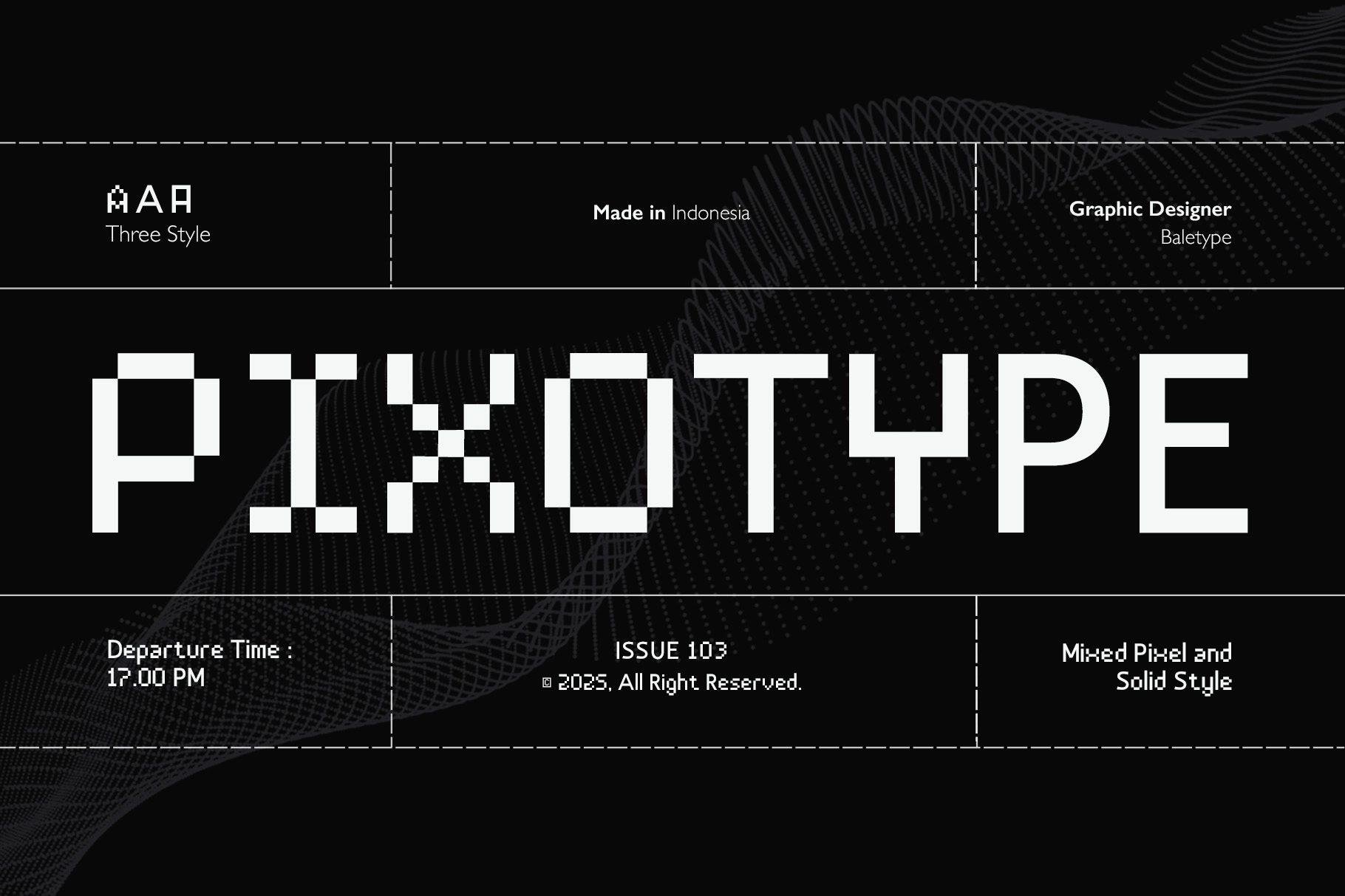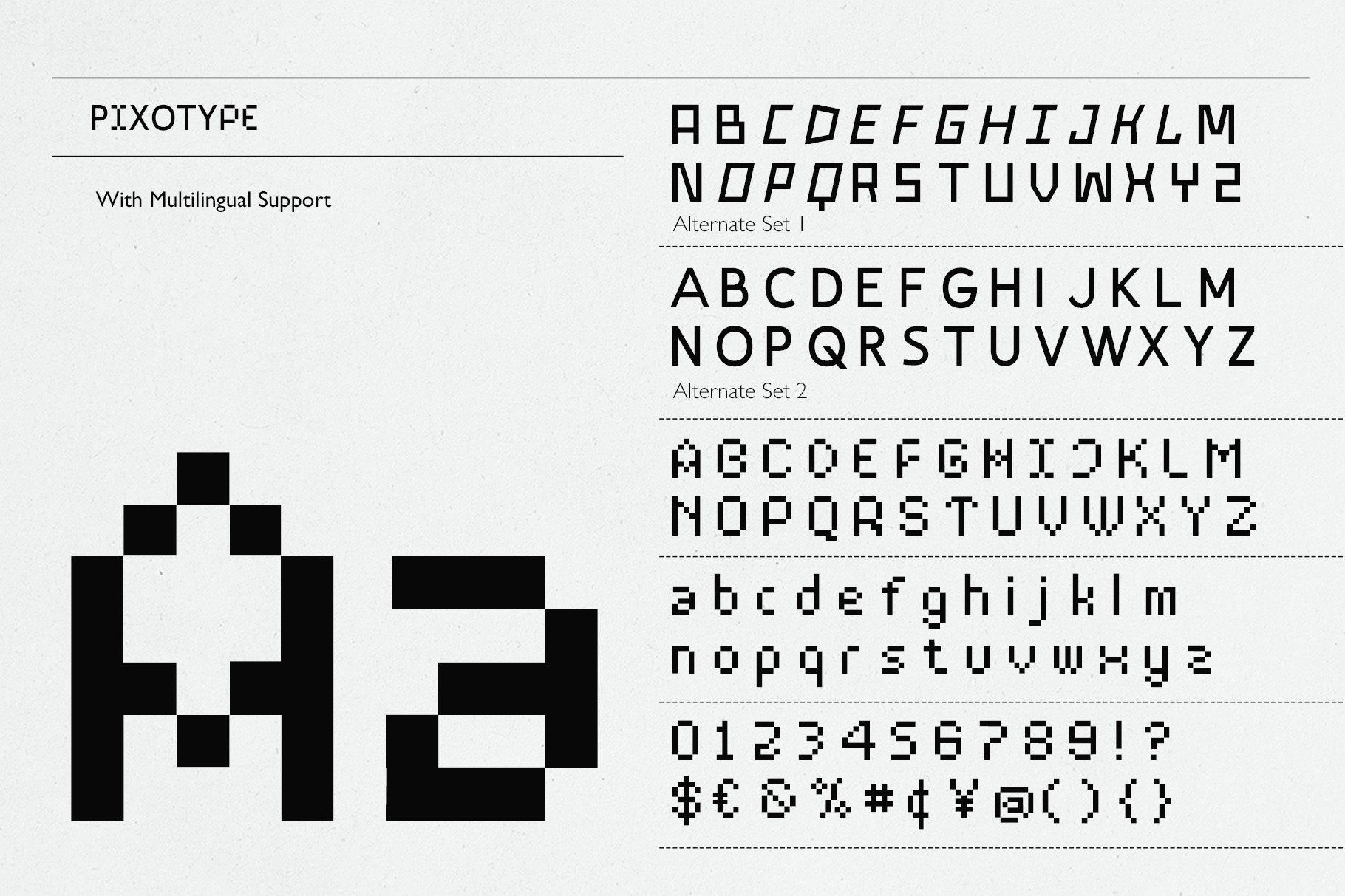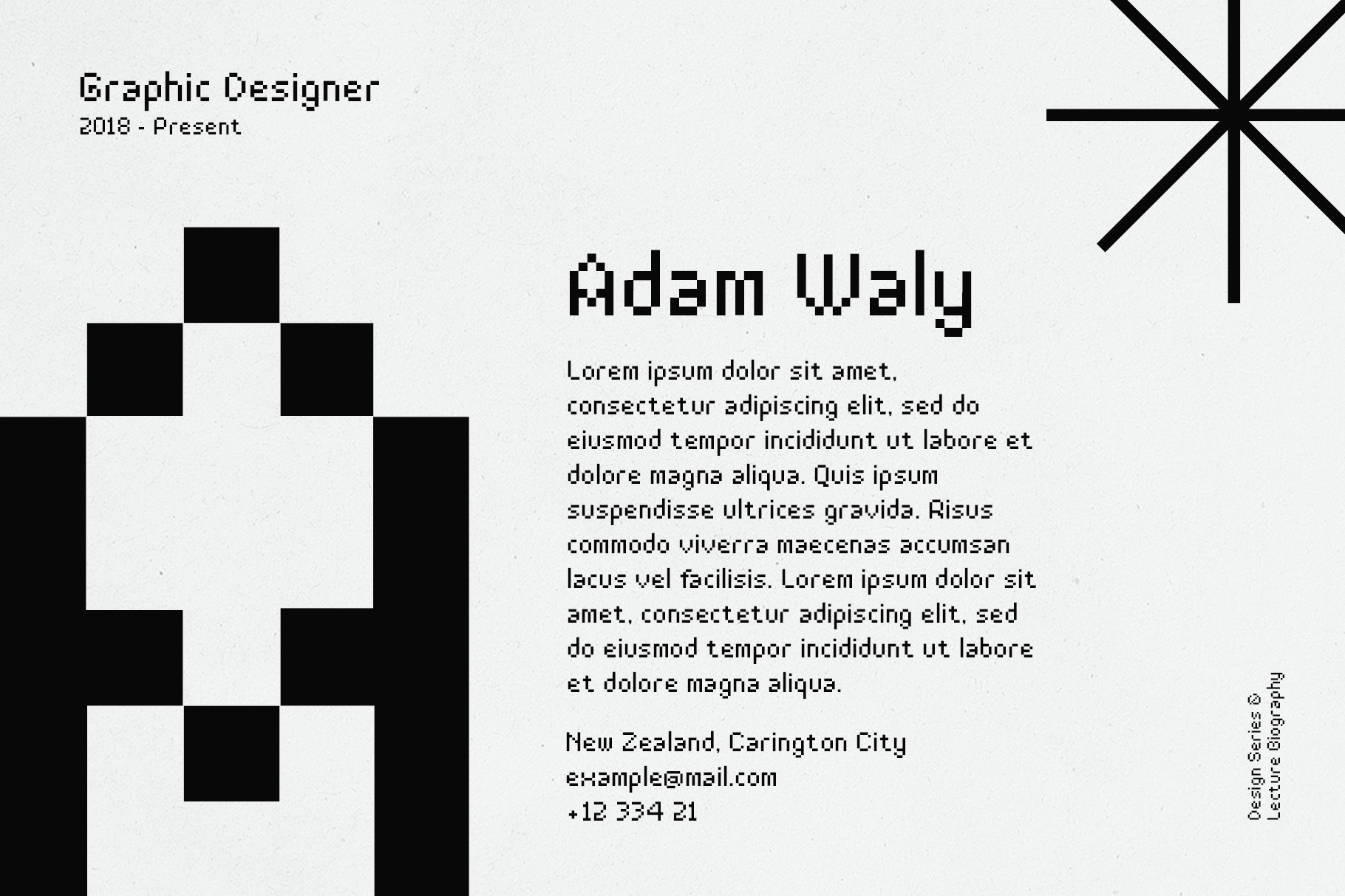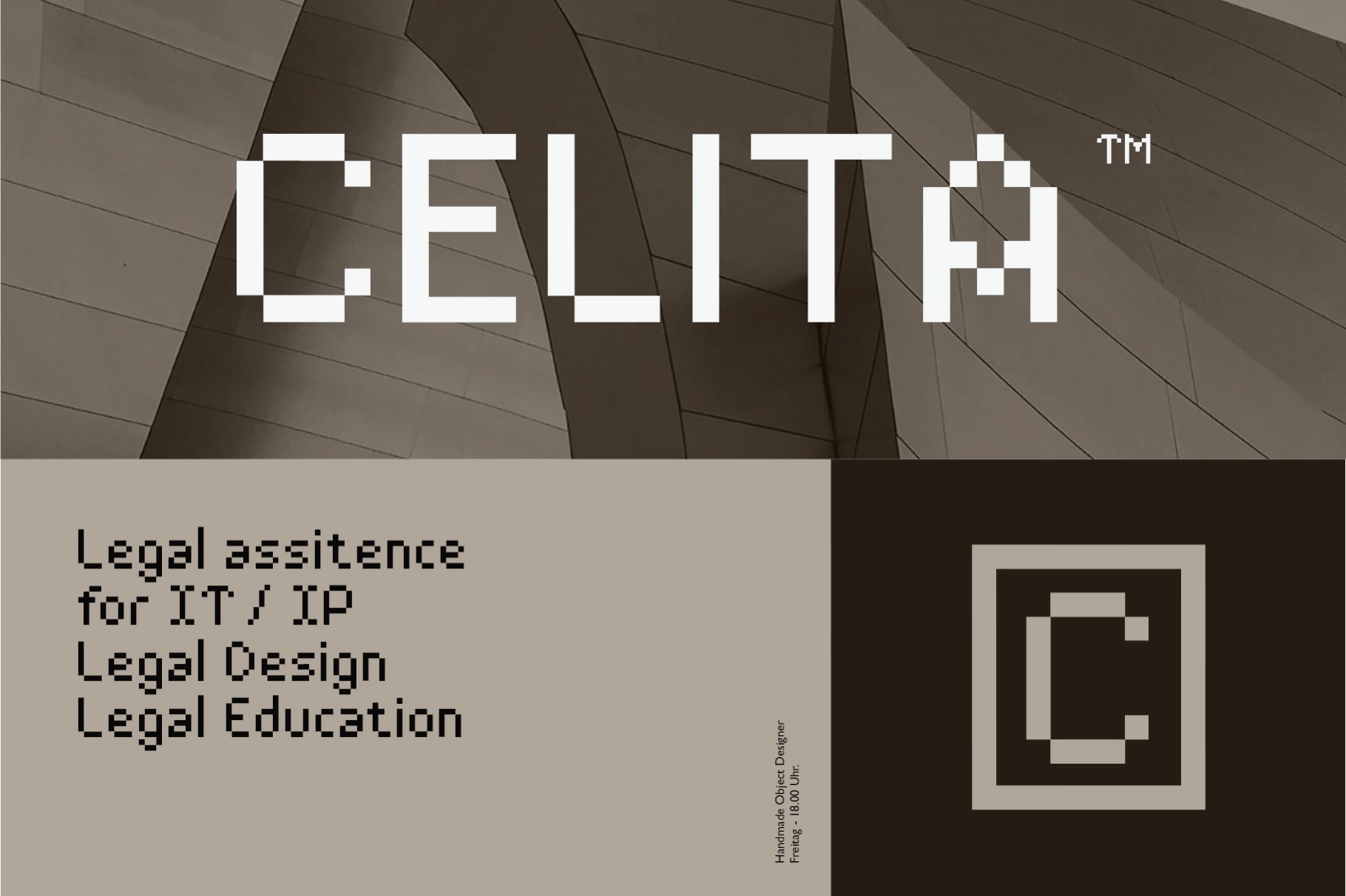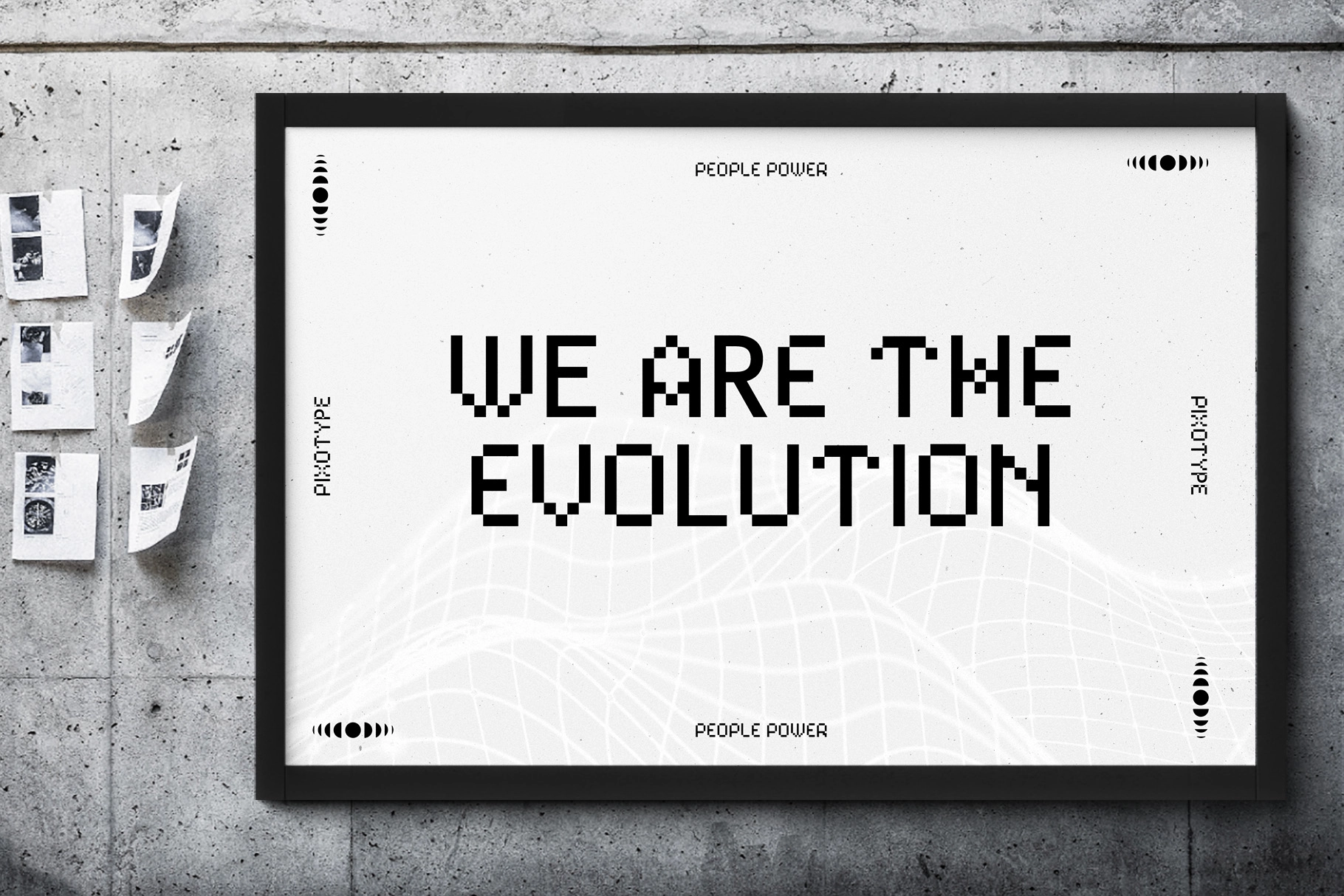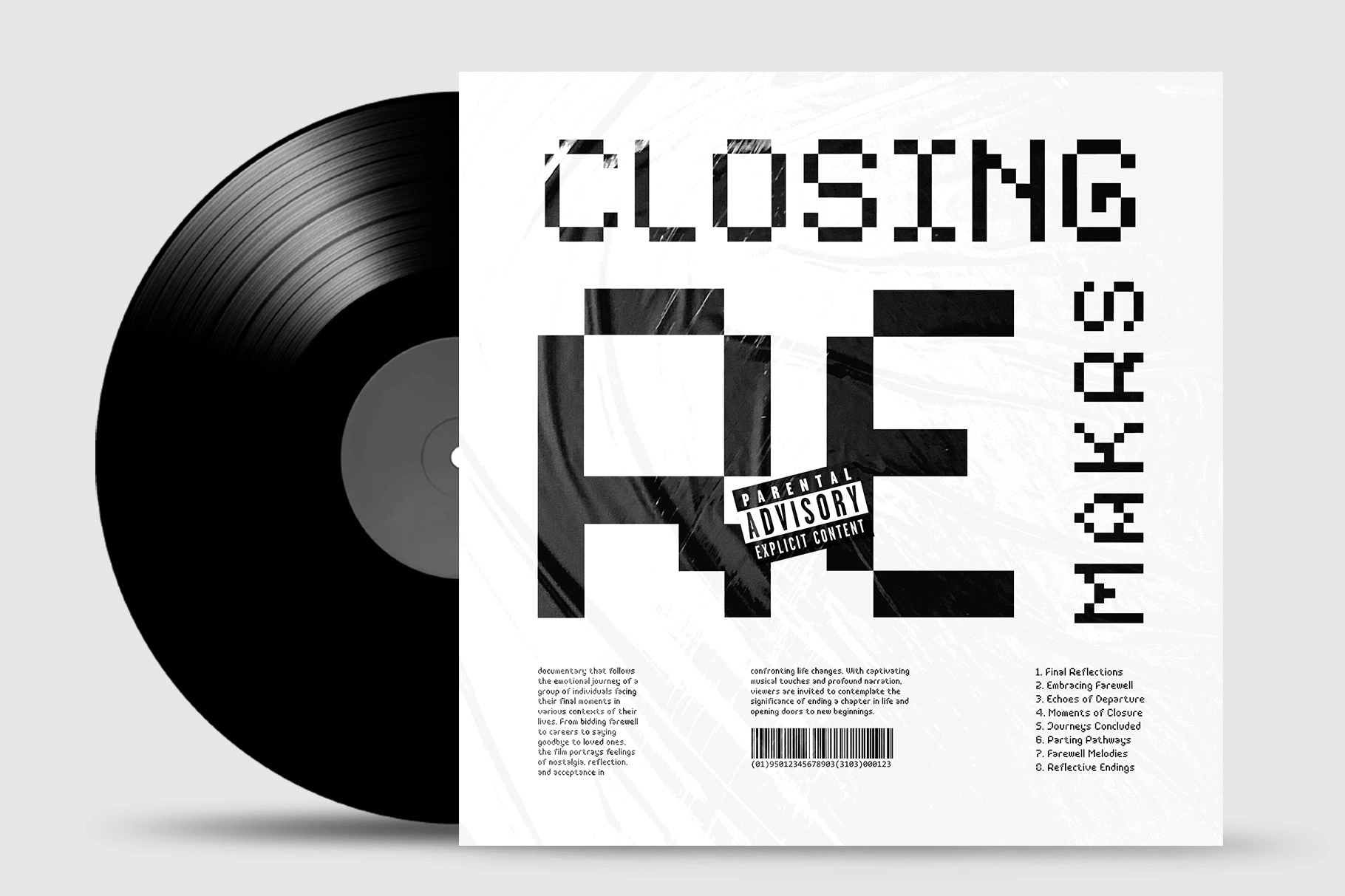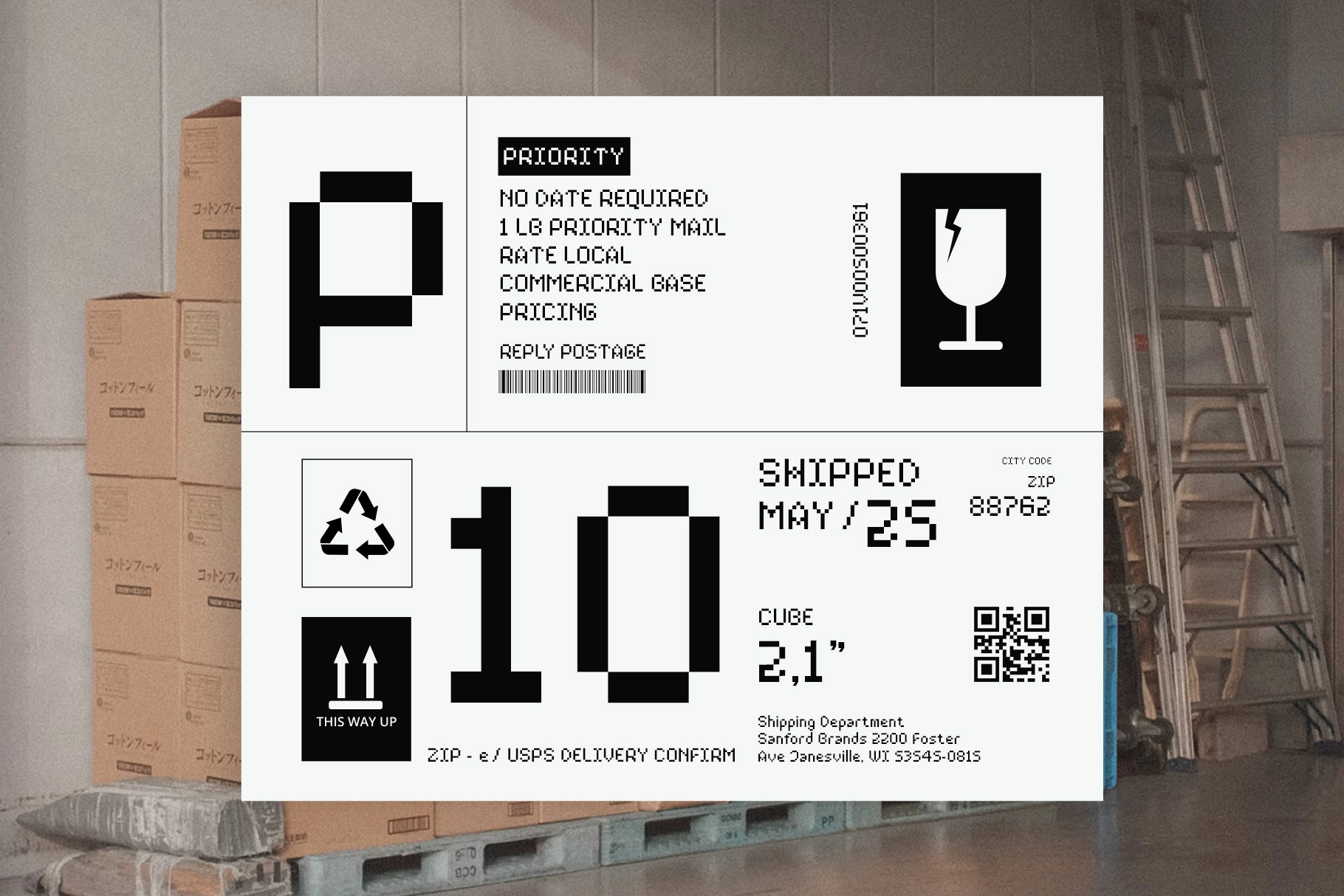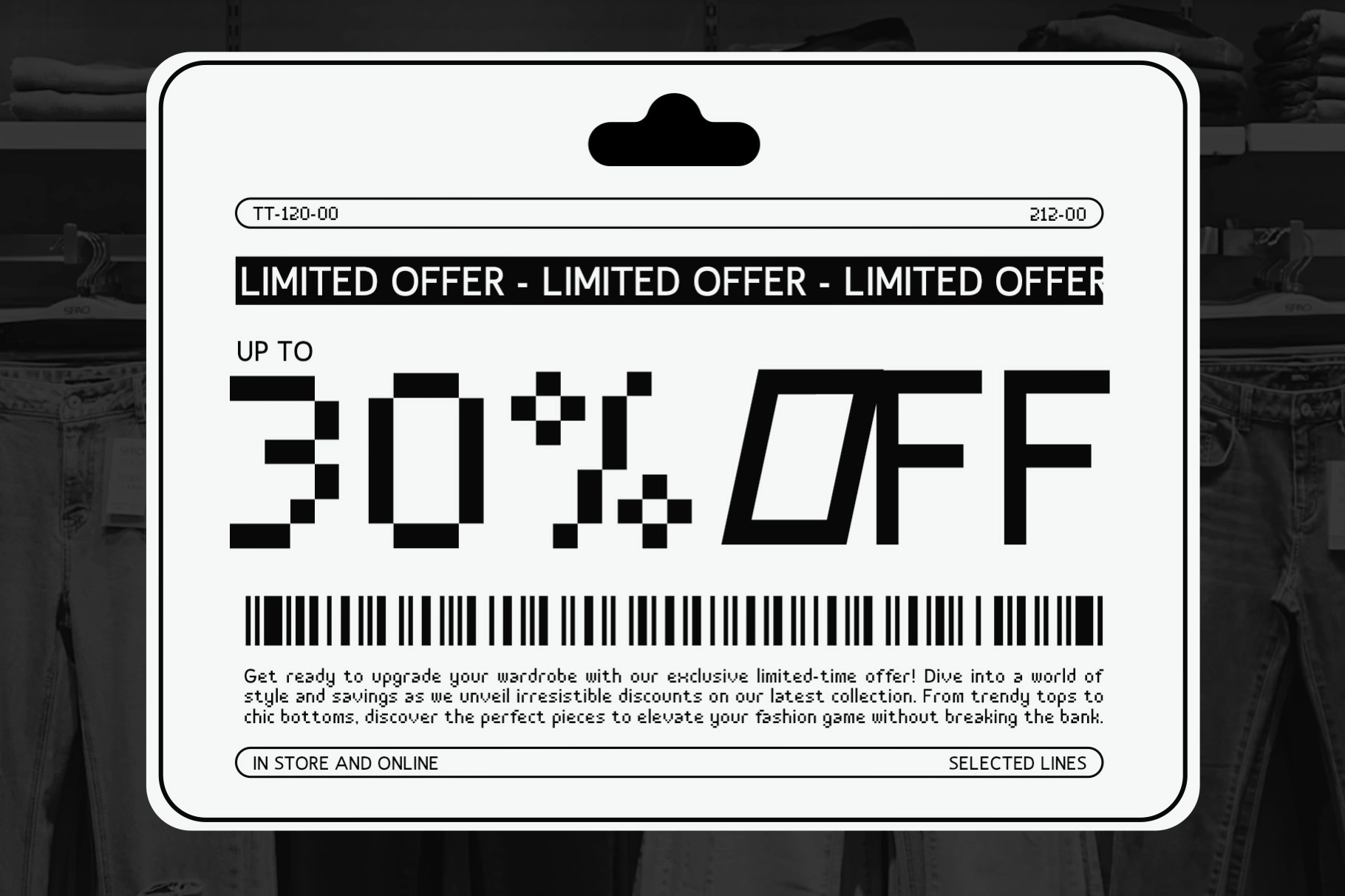
Pixotype - Stylish Pixel Font
Pixotype, Stylish Pixel Font draws from early computer graphics and arcade-era bitmap typography, echoing the rigid charm of 8-bit interfaces and dot-matrix displays with a crisp, modular structure. It fits game UI, tech branding, posters, logotypes, packaging, and digital interfaces, especially where a retro-futurist tone or coded visual language defines the project.
• Uppercase & lowercase letters
• Numbers & punctuation
• Two alternate uppercase sets
• Pixel and solid style variations